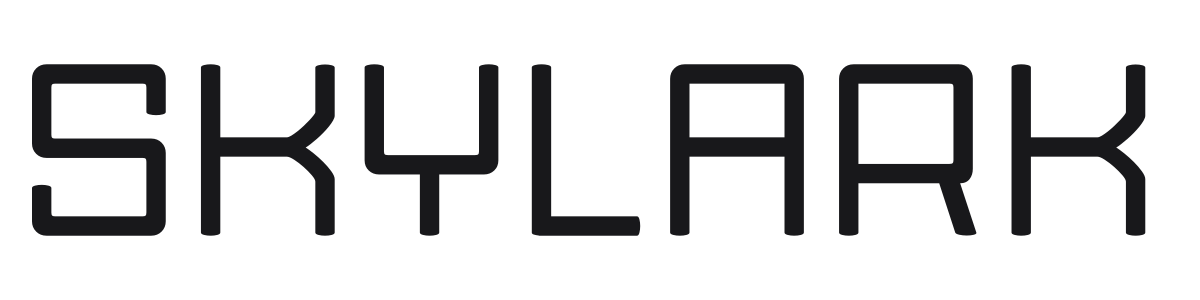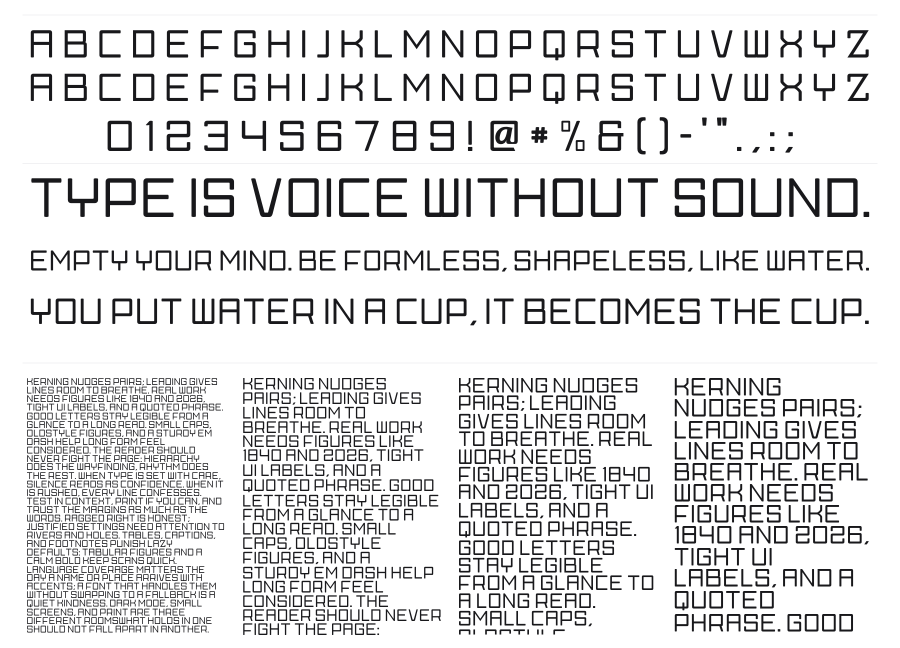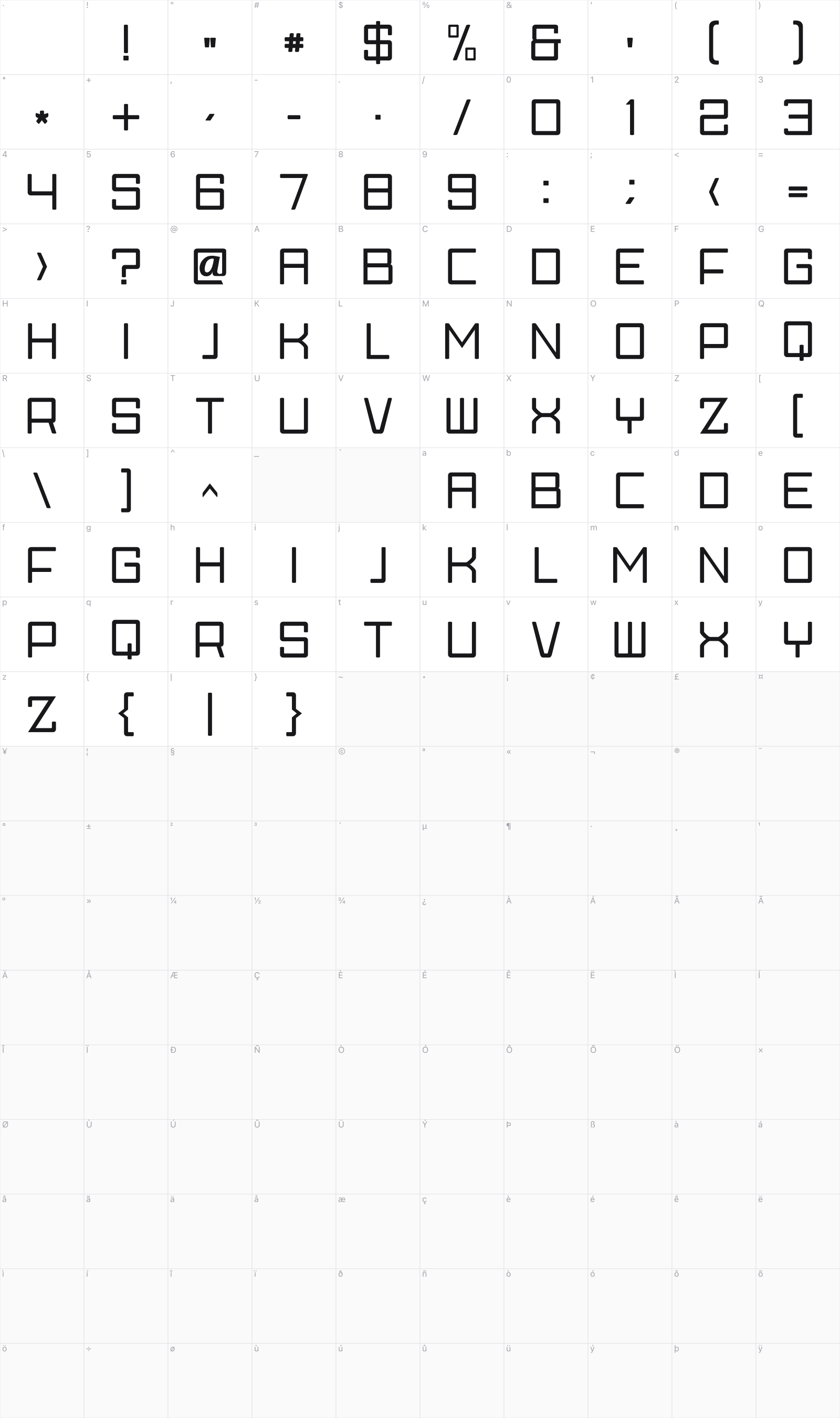
Skylark
Skylark is a wide geometric sans-serif built on a strict square grid with uniform stroke weight and sharp right-angle construction. Every character feels modular and architectural, drawn more from drafting tools than calligraphic tradition. The light weight and open spacing give it a calm, precise presence that works well in branding and headline contexts.